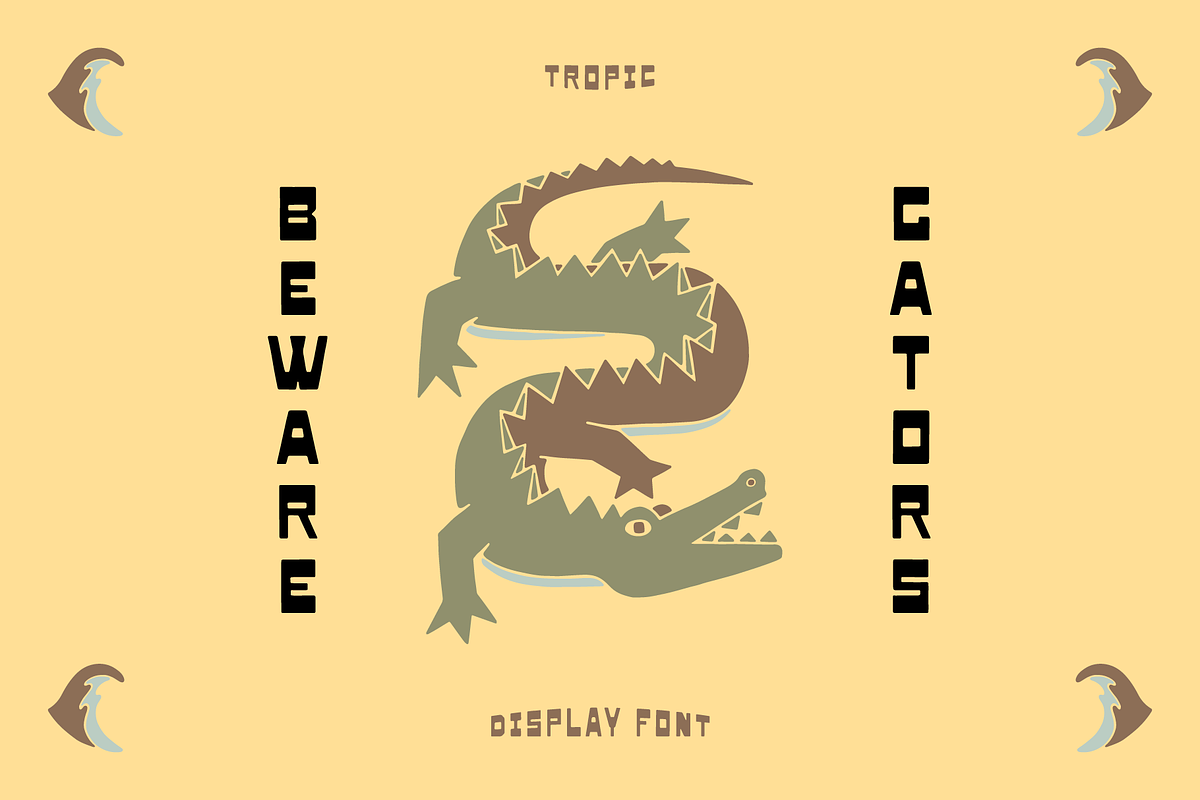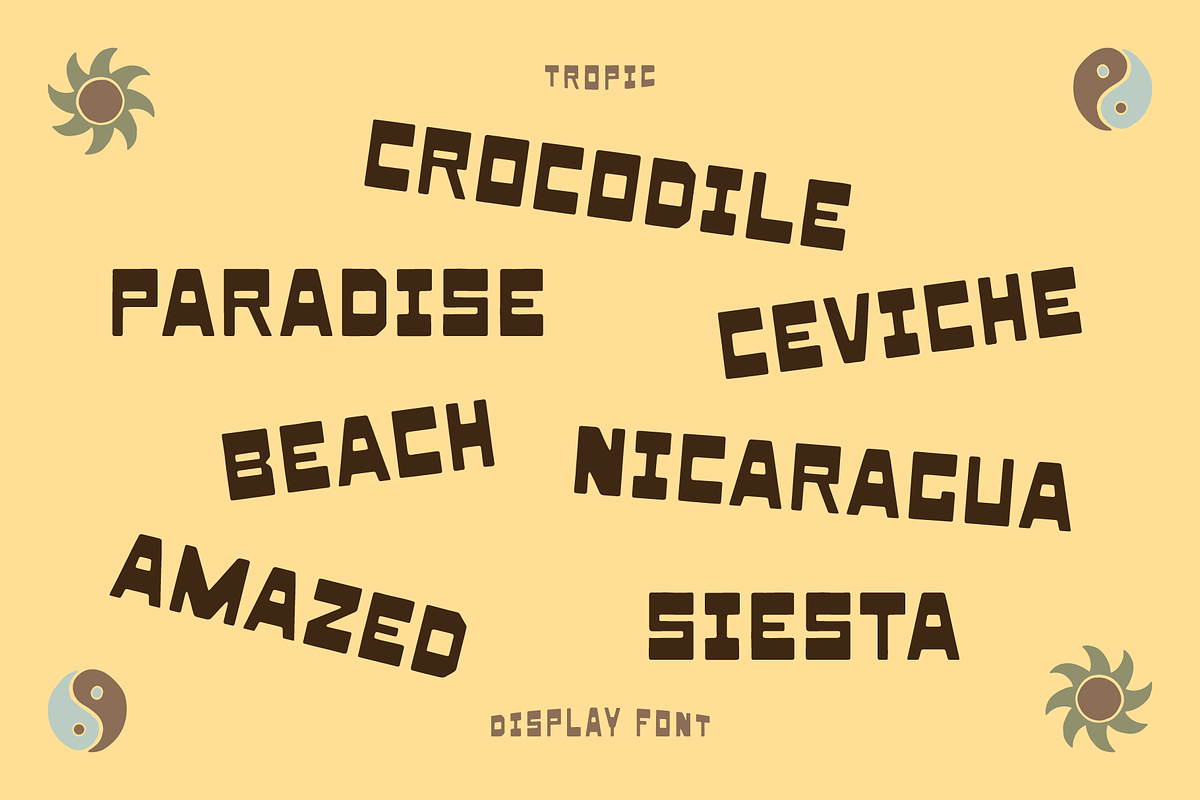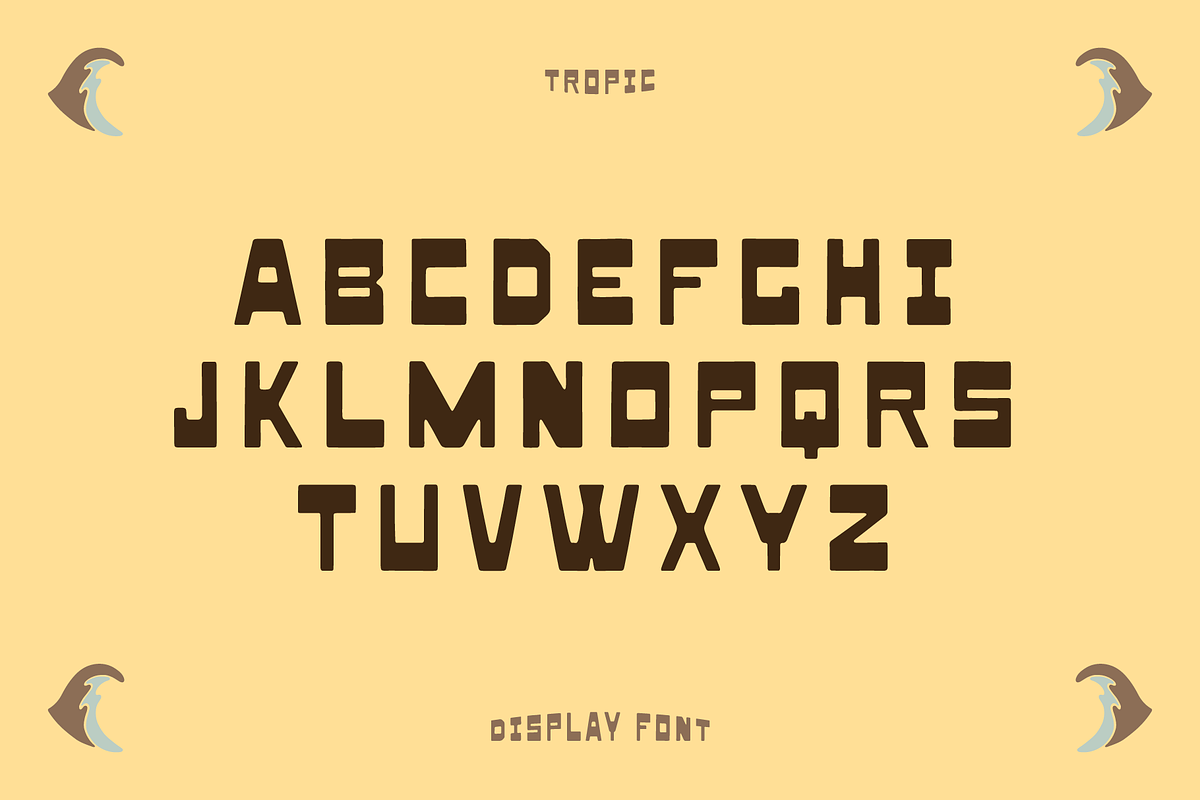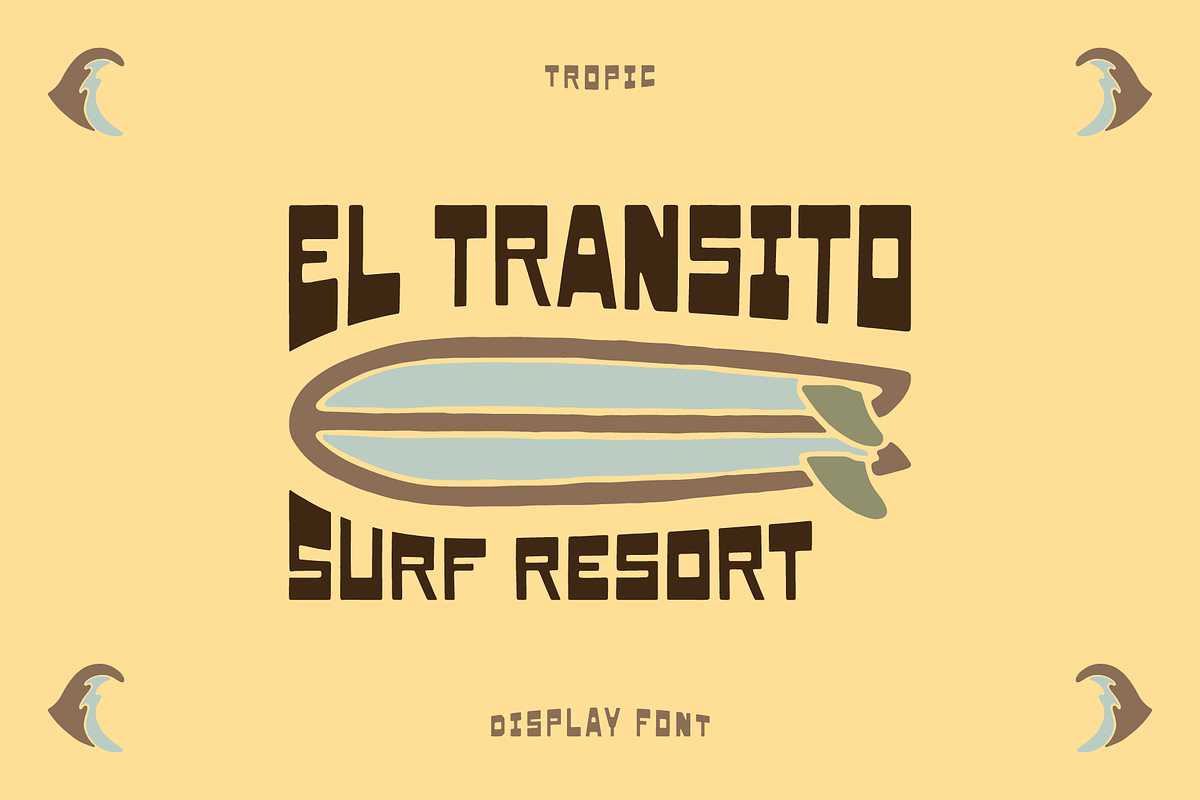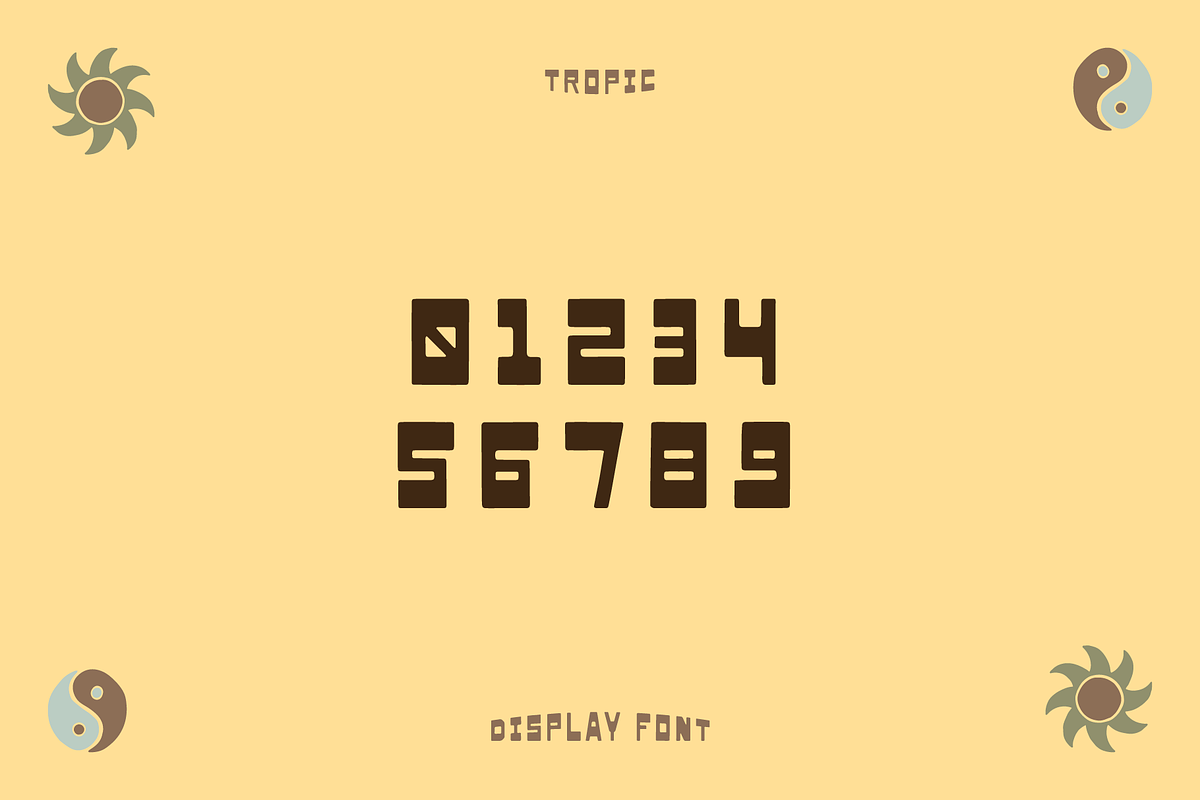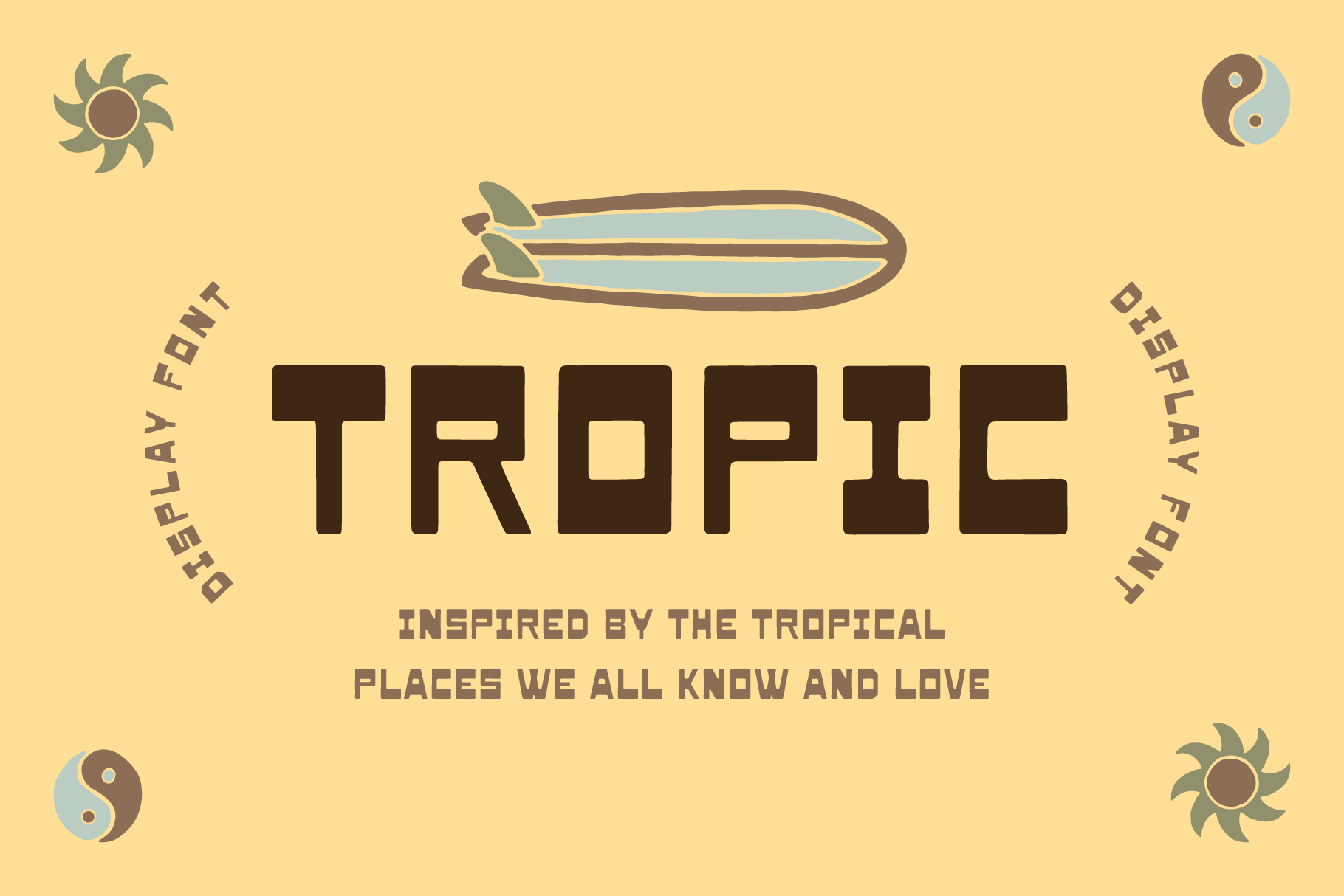
Tropic Display Font
Tropic Display is a reverse weight sans-serif font that packs a huge punch of personality. Inspired by the tropics of Central America, this font is perfect for logos, posters and bold typography that needs a bit more somethin’ somethin’.